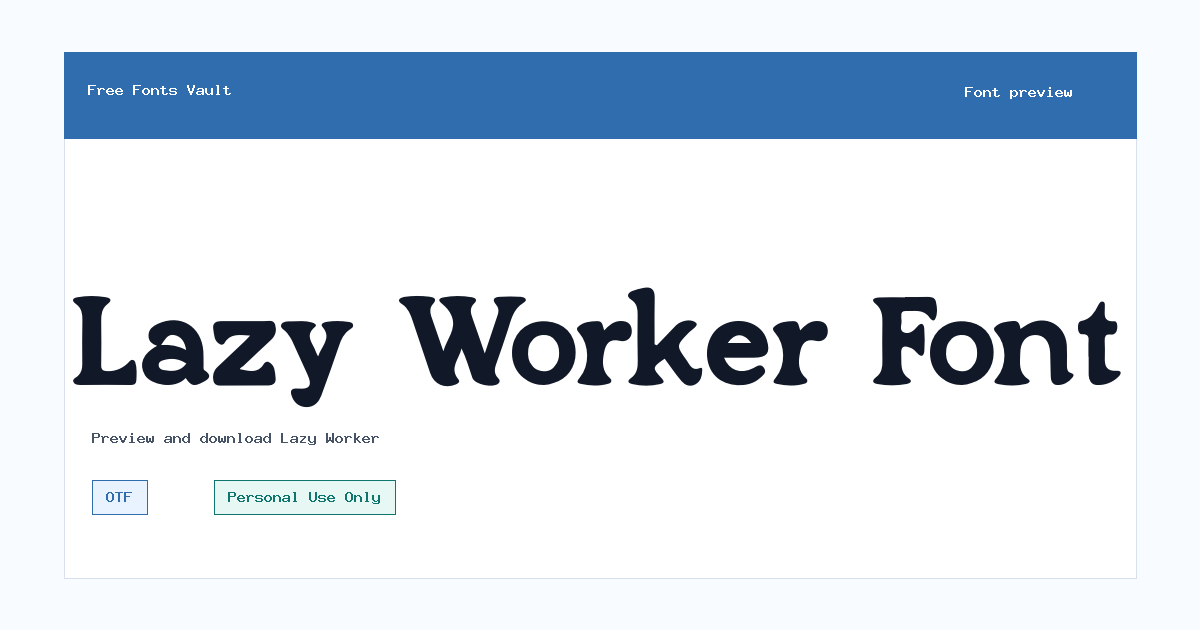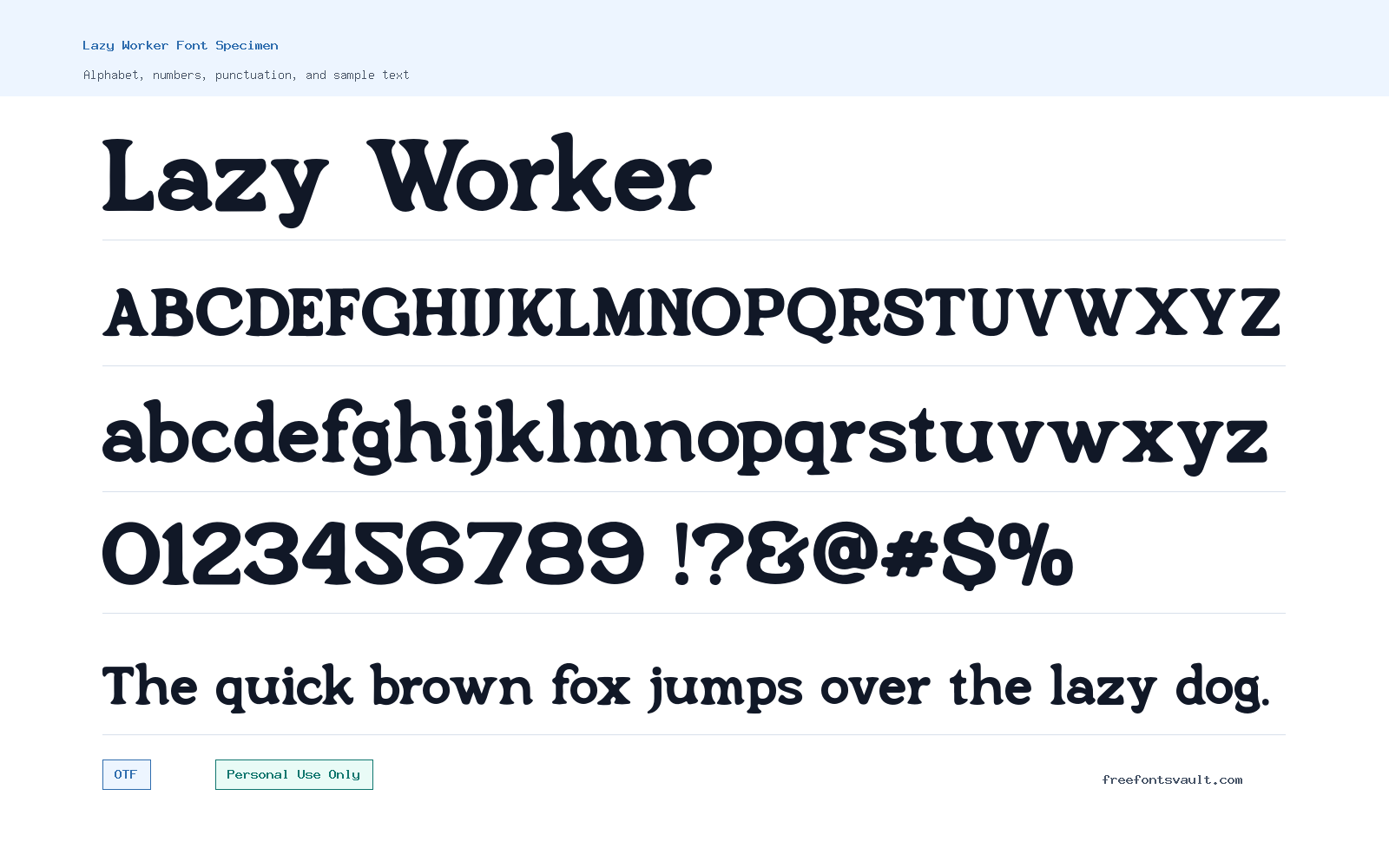
Lazy Worker
- Designer Bakhrudin Ja'far
- Foundry Roomspace Creative Lab
Lazy Worker font.
Lazy Worker is a serif font for personal projects where you want a calmer, more characterful look than a plain default typeface. It is best tested in short text first, especially headings, names, quotes, and display lines.
About Lazy Worker Font
Lazy Worker comes as a regular OTF font file with normal style and 400 weight. Because it is a serif design, it can work well when a project needs a more editorial or decorative tone without moving into script lettering. Try it for title treatments, personal posters, mood boards, invitation drafts, scrapbook layouts, digital cards, and preview mockups where the wording is short enough for the letter shapes to stand out.
- Serif design suited to short display text, titles, and personal design drafts
- Personal posters, quote graphics, invitations, and decorative headings
- Logo concept sketches, social graphics, mood boards, and title previews
The font is credited to Bakhrudin Ja'far, with Roomspace Creative Lab listed as the foundry.
Who designed Lazy Worker?
Lazy Worker is credited to Bakhrudin Ja'far, and Roomspace Creative Lab is listed as the foundry.
What kind of projects is Lazy Worker good for?
It is a practical choice for personal-use display work such as headings, quote art, cards, posters, mood boards, and design previews. Test your exact wording first to make sure the spacing, punctuation, and readability fit your layout.